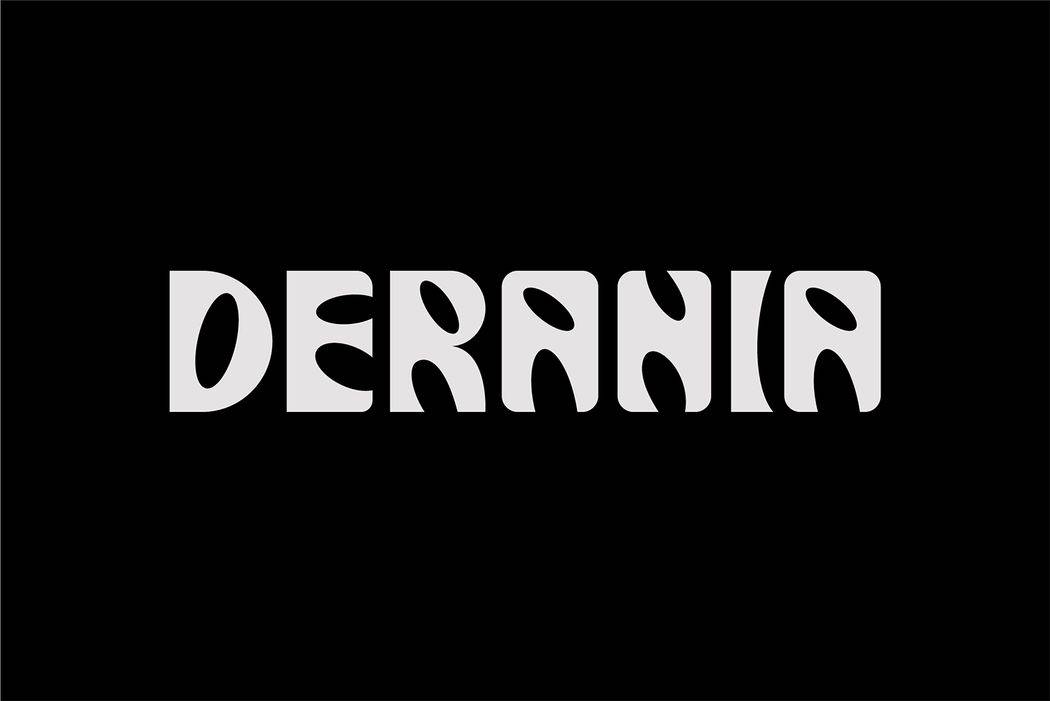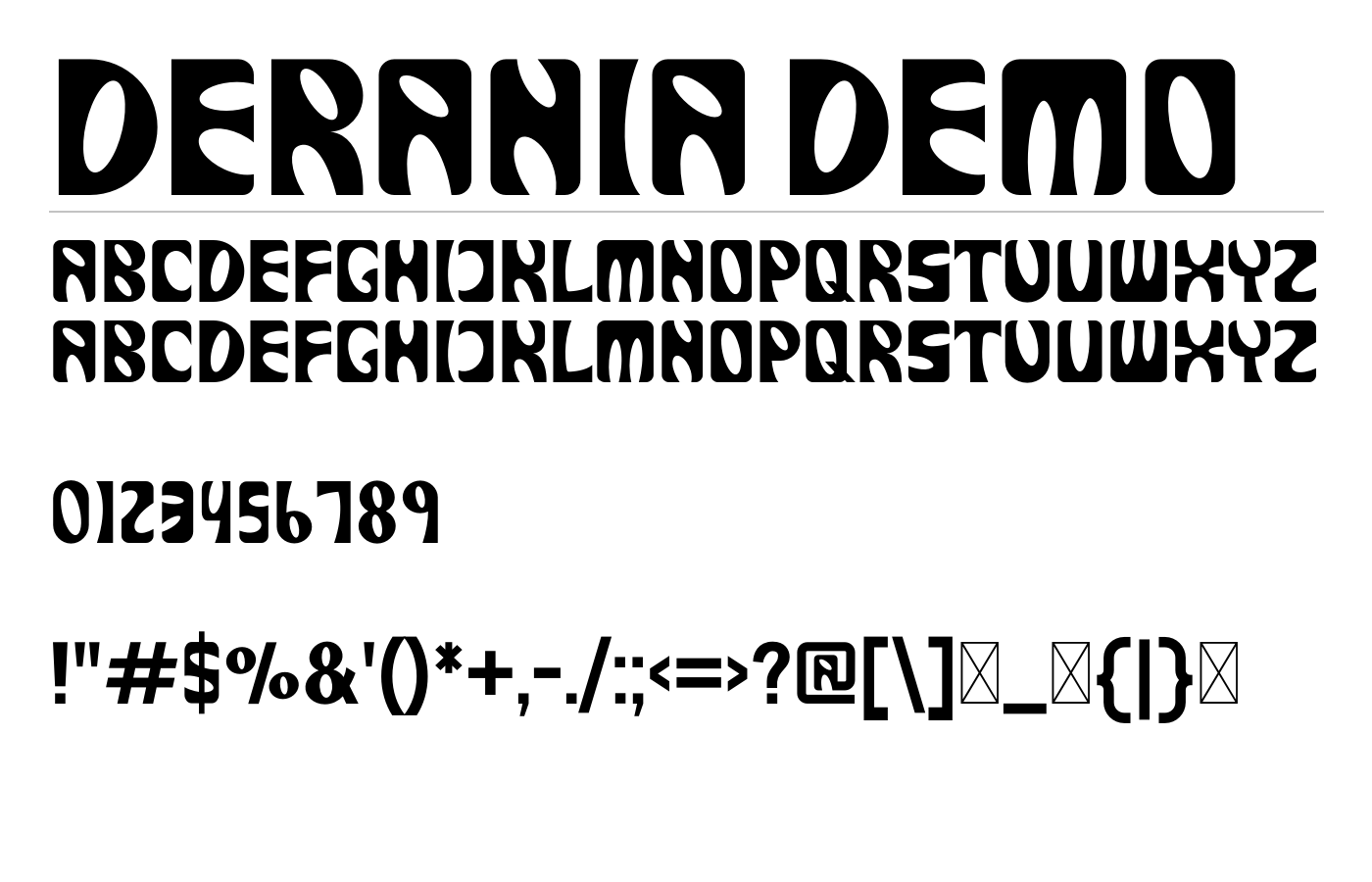
Derania is a bold, decorative sans serif font with rounded, playful letterforms and a strong visual presence. Its unique, almost blocky shapes combined with unexpected curves give it a fun, retro vibe that works well for eye-catching headlines, creative branding, and quirky packaging. This font shines where individuality and a bold statement are needed, making it perfect for artistic or unconventional design projects.
Derania Font
About Derania Font
| Font family | Derania Font |
| Designer | Muhammad Muammar |